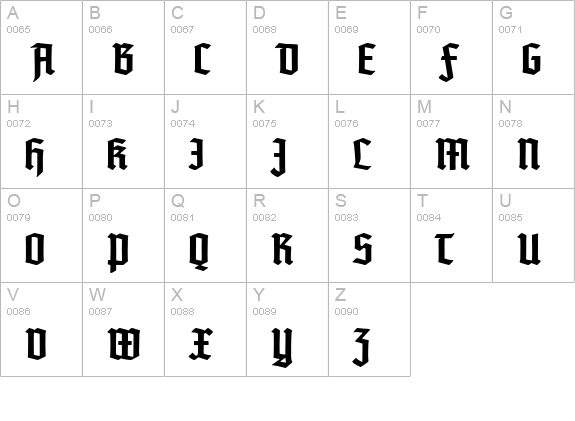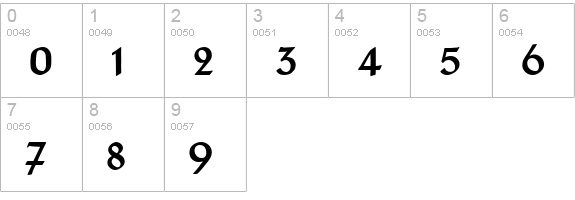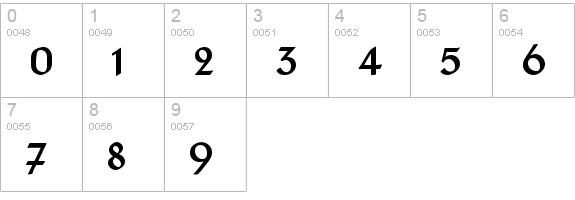
TypographerTextur Bold is a strong, high-contrast variant in the TypographerTextur typeface family \xE2\x80\x94 well suited to headlines, attention-grabbing titles, and strong calls-to-action.
Introducing TypographerTextur Bold, a magnificent and versatile font that effortlessly merges elegance and boldness in a perfect harmony. This captivating typeface is designed to captivate your audience with its distinct character and unique texture. With its strong, clean lines and exquisite details, TypographerTextur Bold commands attention and adds a touch of sophistication to any design project. The beauty of TypographerTextur Bold lies not only in its aesthetic appeal but also in its versatility. This font is remarkably adaptable, making it suitable for a wide range of applications, from editorial designs, branding, and packaging to posters, headlines, and more. No matter the project, TypographerTextur Bold effortlessly elevates any composition, leaving a lasting impression. What sets TypographerTextur Bold apart from other fonts is its unbeatable combination of style and accessibility. Not only does it exude elegance and charm, but it is also freely available to download at FontsMarket.com. Yes, you read that right—this remarkable font can be yours at absolutely no cost. FontsMarket.com offers a vast collection of high-quality fonts, and TypographerTextur Bold is just one of the many treasures waiting to be discovered. Whether you are a professional designer looking to make a statement or an aspiring creative seeking to add a touch of sophistication to your personal projects, TypographerTextur Bold is the perfect choice. Its flawless design, coupled with its availability as a free download, makes it an irresistible option for anyone seeking to enhance their visual creations. Download TypographerTextur Bold today from FontsMarket.com and unlock the limitless possibilities this font holds. Let your designs speak volumes with the distinguished elegance of TypographerTextur Bold, and leave a lasting impression on your audience.